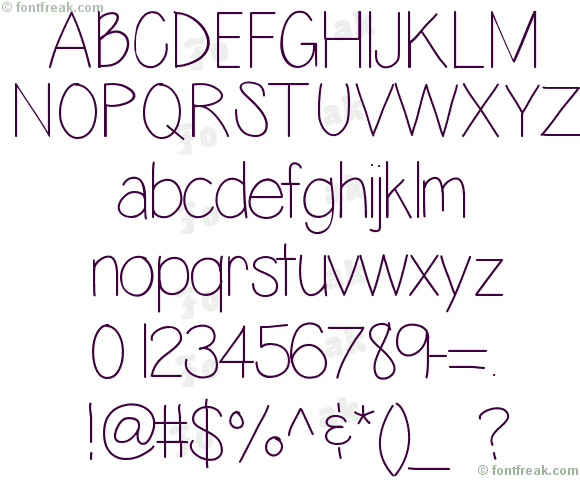
LazyDay
About LazyDay
The LazyDay font, crafted by Vanessa Bays, is a delightful handwritten typeface that exudes a casual and relaxed vibe, perfect for a variety of creative projects. This font is categorized as a script style, characterized by its fluid and organic letterforms that mimic the feel of natural handwriting. The strokes are delicate yet distinct, featuring a balanced weight that adds a sense of warmth to any design. The spacing between characters is generous, enhancing readability while maintaining an inviting appearance.
LazyDay's visual appeal is heightened by its charming quirks, such as playful loops and unique ascenders and descenders that add character without overwhelming the viewer. This makes it an ideal choice for projects that aim to convey a friendly and approachable tone. The font is versatile enough to be used in various contexts, including wedding invitations, where its elegance can enhance the romantic feel of the occasion. It also shines in branding for coffee shops and boutique stores, allowing small businesses to create a memorable identity. Additionally, LazyDay is suitable for crafting personalized greeting cards, where its whimsical touch can bring a smile to any recipient. Content creators will find it perfect for social media graphics, adding a personal flair to their posts.
Targeted at graphic designers, small business owners, and content creators, this font offers a unique aesthetic that can elevate any project. The LazyDay font free download makes it accessible for anyone looking to infuse their work with a touch of creativity. What sets LazyDay apart is its ability to blend warmth and professionalism, making it a standout choice for those who appreciate the beauty of handwritten typography. Whether for personal or commercial use, LazyDay invites creativity in every letter.